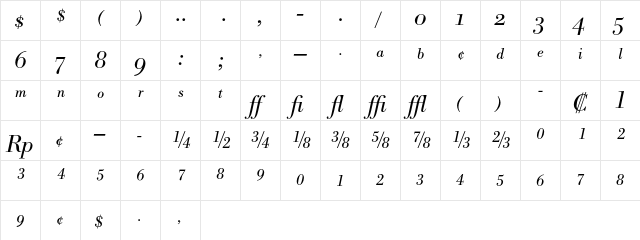
Bodoni BE Light Italic Expert Font Preview
Design Context for Bodoni BE Typeface
Bodoni BE takes a measured approach to typography — its balanced proportions and neutral character make it a reliable workhorse for both digital and print work. The dynamic lean of this cut emphasises speed and emphasis in any layout. The delicate stroke weight brings airiness and refinement to layouts.
Pro Tip: Try Bodoni BE for annotation and caption copy alongside an upright companion — the contrast in angle creates a dynamic but ordered typographic system.